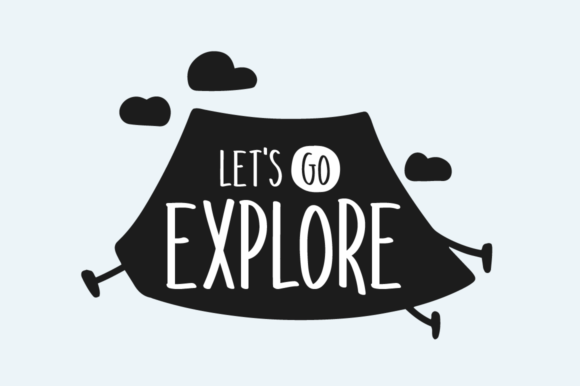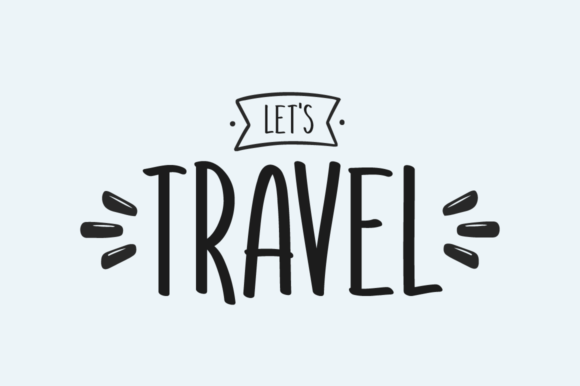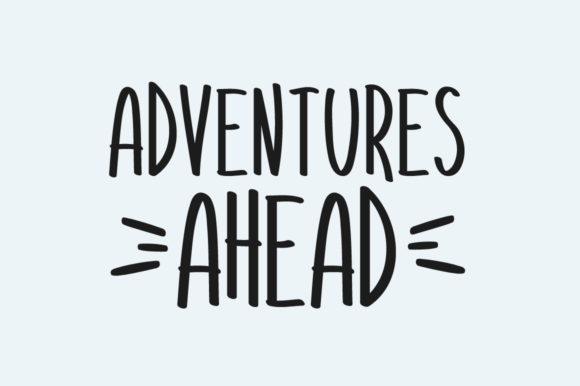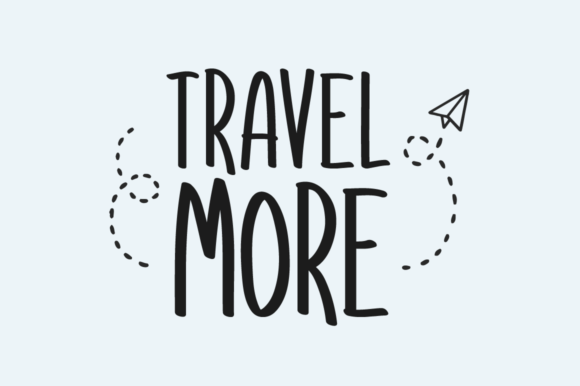
Aim High Font: Elevate Your Designs with a Personal Touch
Are you a designer, crafter, or educator looking for a font that can add a personal and realistic feel to your designs? Look no further than Aim High Font, a simple, neat, and natural handwritten font that’s perfect for chalkboard quotes, teaching materials, and more.
The Authentic Look and Feel of Aim High Font
Aim High Font is designed to mimic the authentic look and feel of handwriting on a chalkboard. Its natural, flowing strokes and subtle imperfections give it a unique and charming character that’s sure to capture the attention of your audience. Whether you’re creating educational materials, social media graphics, or promotional materials, Aim High Font is the perfect choice for adding a personal touch.
Key Features of Aim High Font
- Simple and Neat: Aim High Font features simple, clean lines that are easy to read and understand.
- Natural Handwritten Style: The font’s natural, handwritten style gives it a unique and authentic feel that’s perfect for chalkboard quotes and teaching materials.
- Versatile: Aim High Font can be used for a wide range of design projects, from educational materials to social media graphics and promotional materials.
- Easy to Read: The font’s clear and legible design makes it easy to read, even at smaller sizes.
Uses for Aim High Font
Aim High Font is perfect for a wide range of design projects, including:
- Chalkboard Quotes: Add a personal touch to your chalkboard quotes with Aim High Font’s natural, handwritten style.
- Teaching Materials: Use Aim High Font to create engaging and educational materials for your students.
- Social Media Graphics: Add a personal touch to your social media graphics with Aim High Font’s unique and charming character.
- Promotional Materials: Use Aim High Font to create promotional materials that stand out from the crowd.
Why Choose Aim High Font?
There are many fonts to choose from, but Aim High Font stands out from the rest. Here are just a few reasons why:
- Unique and Authentic: Aim High Font’s natural, handwritten style gives it a unique and authentic feel that’s hard to find in other fonts.
- Versatile: Aim High Font can be used for a wide range of design projects, making it a great addition to any designer’s toolkit.
Tips for Using Aim High Font
Here are a few tips for getting the most out of Aim High Font:
- Use it for Headlines: Aim High Font is perfect for headlines and titles, where its unique and charming character can really shine.
- Pair it with Other Fonts: Aim High Font pairs well with other fonts, making it easy to create visually appealing designs.
- Experiment with Colors: Aim High Font looks great in a variety of colors, so don’t be afraid to experiment and find the perfect color for your design.
Aim High Font is a simple, neat, and natural handwritten font that’s perfect for designers, crafters, and educators looking to add a personal touch to their designs. With its authentic look and feel, versatile uses, and easy-to-use design, Aim High Font is a great addition to any designer’s toolkit. So why wait? Download Aim High Font today and start elevating your designs to new heights!